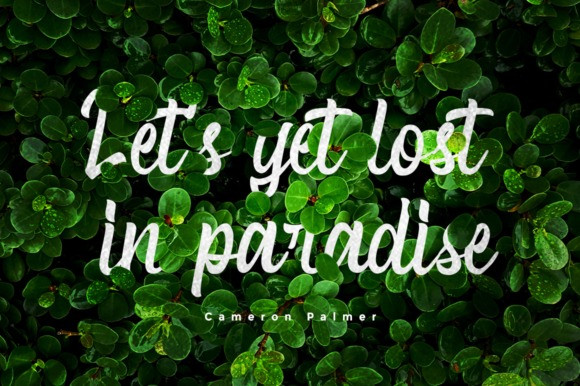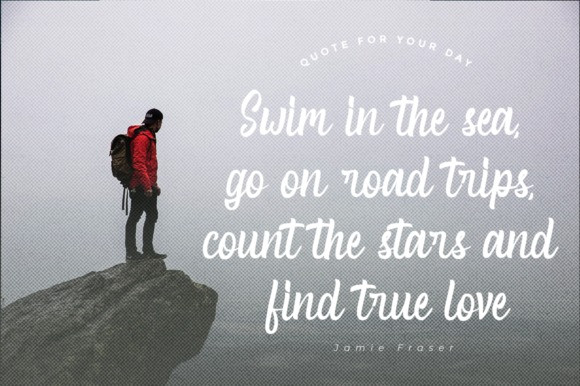
Alvarisky Script Font
Alvarisky is a stylish script font that inspired by combination of streetwear, bouncy and hand lettering styles.
Ideal for logos, badge, label, apparel, club, event, handwritten quotes, product packaging, header, poster, merchandise, social media & greeting cards.